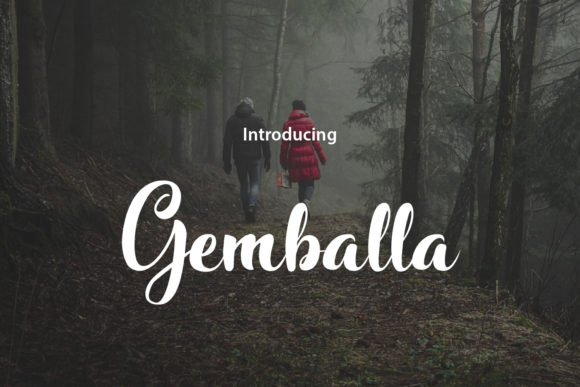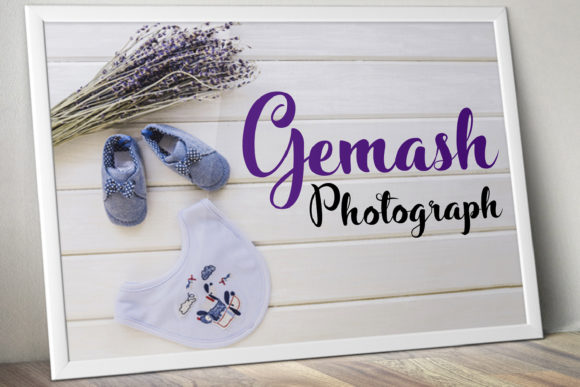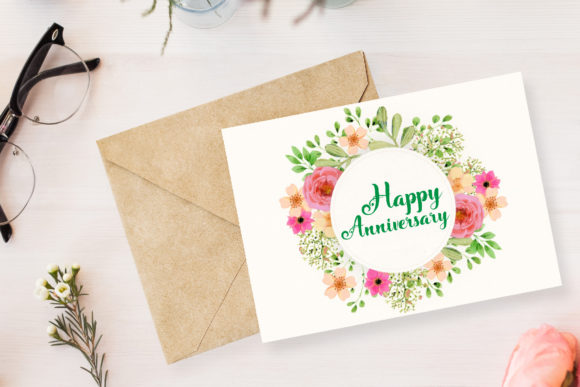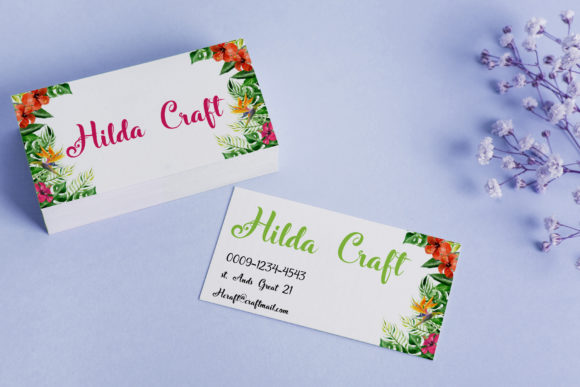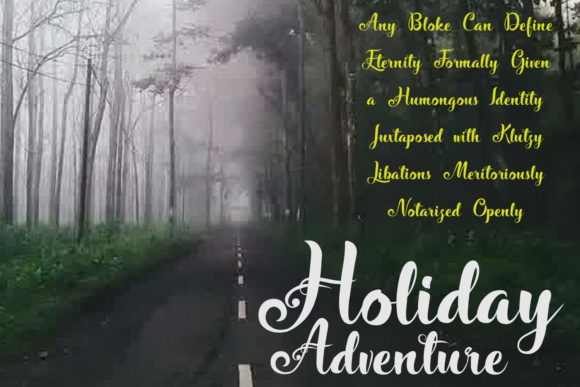
HomeScript FontsGemballa Font Script Fonts Gemballa Font FacebookXPinterestWhatsApp Gemballa Font Poster 2 Gemballa Font Poster 3 Gemballa Font Poster 4 Gemballa Font Poster 5 About Gemballa Font Gemballa is an equally beautiful and charming script font with a modern feel. Get inspired by its unique style! DOWNLOAD NOW People also explored Vine Font Callina Font Perfect Moment Font Sacha Font Outer Easter Font Neon Cactus Font mitha adelle love script calligraphy font Wulenno Font Farmhouse Font 337 0 TagsGemballa Font Previous articleLydiani Duo FontNext articleRudolf Sleigh Font LEAVE A REPLY Cancel reply Comment: Please enter your comment! Name:* Please enter your name here Email:* You have entered an incorrect email address! Please enter your email address here Website: Save my name, email, and website in this browser for the next time I comment. Personal Use Free Baby Love Personal Use Free Read more about this font Time for Presents Personal Use Free Read more about this font Lightning Script Personal Use Free Read more about this font Boronic Personal Use Free Read more about this font BLOG Free Fonts Risk: Why Free Fonts Can Be Dangerous for Designers Free Fonts Risk: Why Free Fonts Can Be Dangerous for Designers Using free fonts is a common practice in web and graphic design. However, the... Modern Sans-Serif Fonts That Brands Love in 2025 Exploring Font Trends Where to Buy American Fonts Online in 2024